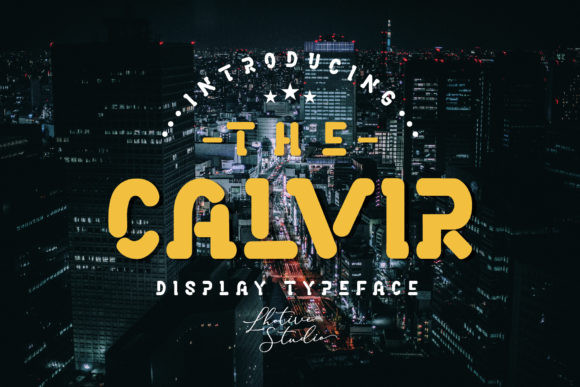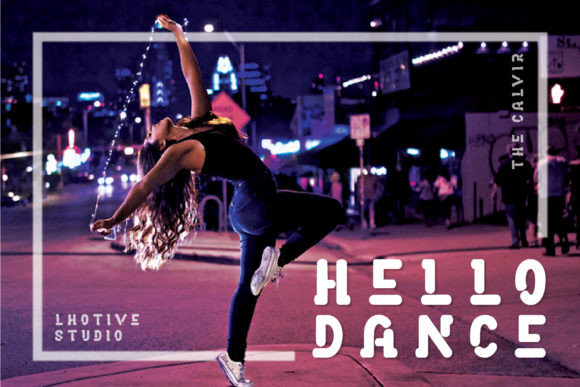
Calvir Font
Calvir is an equally minimalist and bold font full of charisma! It’s perfect for logos, name cards, magazine layouts, invitations, headers, or even large-scale artworks.